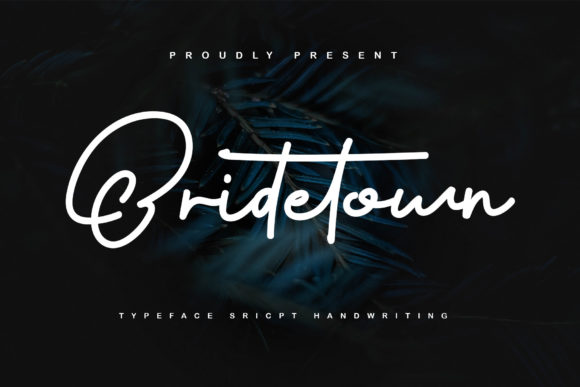
Bridetown Font
If you're on the hunt for a font that radiates warmth and charm, look no further than Bridetown. This captivating script font, meticulously crafted by YanStudio, exudes a touch of whimsy and playfulness that will elevate your designs to new heights.
Bridetown's enchanting curves and graceful swashes evoke a sense of heartfelt emotion, making it the perfect choice for expressing love, joy, and all the heartfelt sentiments that make life worth living. Whether you're creating heartwarming invitations, enchanting logos, or simply adding a touch of personal flair to your projects, Bridetown has the power to transform your words into works of art.
But beyond its aesthetic allure, Bridetown is also an incredibly versatile font, lending itself effortlessly to a wide range of design endeavors. Its charming imperfections and natural flow make it an ideal choice for adding a touch of handmade charm to any project. It's the perfect font for creating eye-catching headlines, captivating social media posts, or even designing enchanting greeting cards that will leave a lasting impression on your loved ones.
One of the standout features of Bridetown is its PUA encoding, which grants you effortless access to a treasure trove of glyphs and swashes. This means you can effortlessly incorporate intricate flourishes and elegant accents into your designs, adding an extra touch of magic and uniqueness to your creations.
So, if you're ready to infuse your designs with a touch of heartfelt charm and whimsical elegance, Bridetown is the perfect font for you. Its warm and inviting personality, combined with its remarkable versatility, will empower you to create designs that speak to the heart and leave an unforgettable mark on the world.